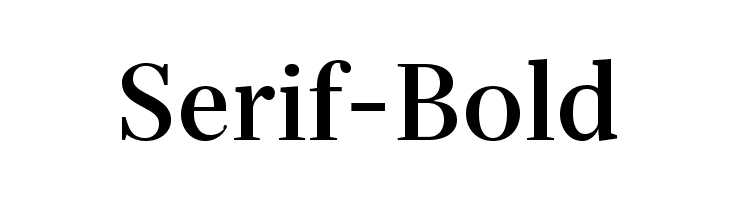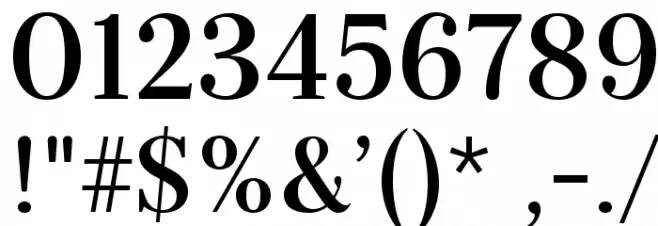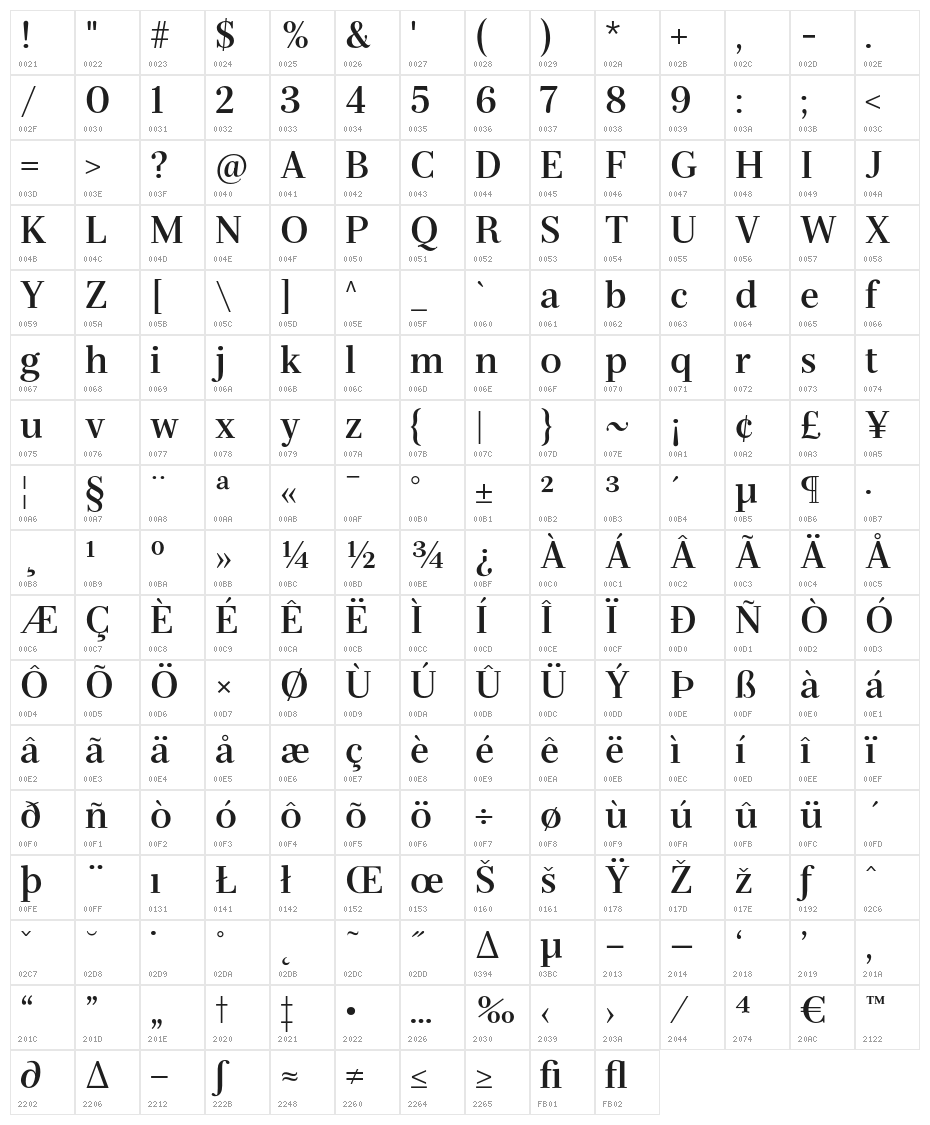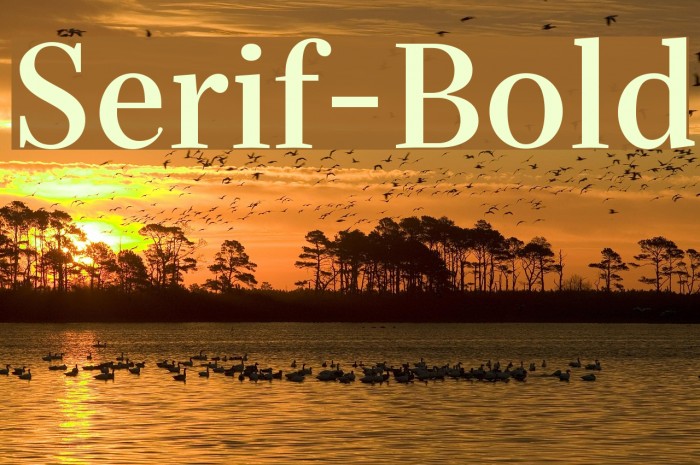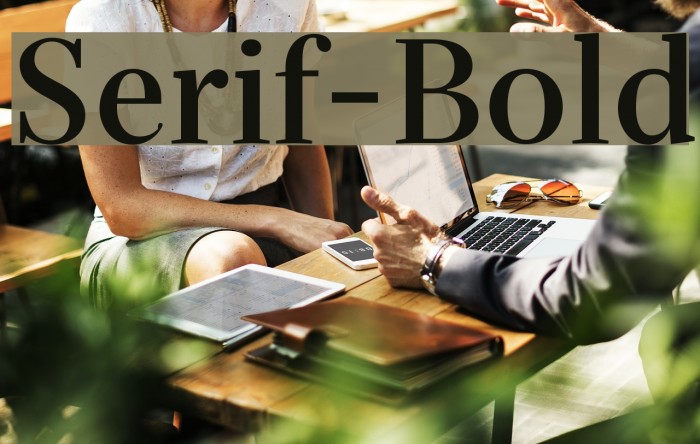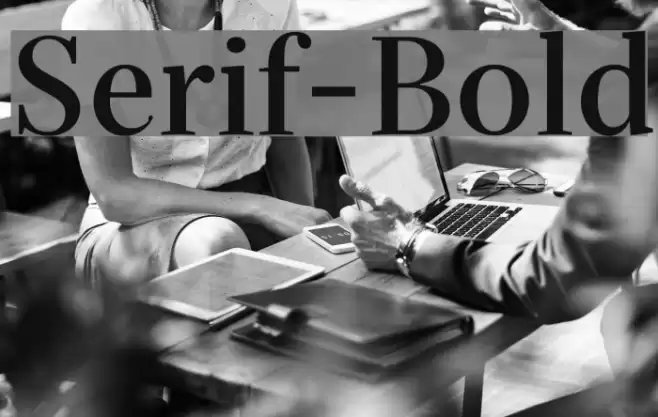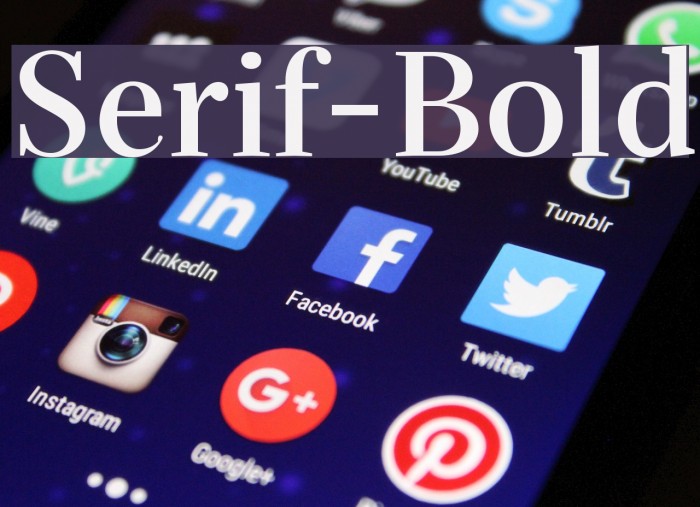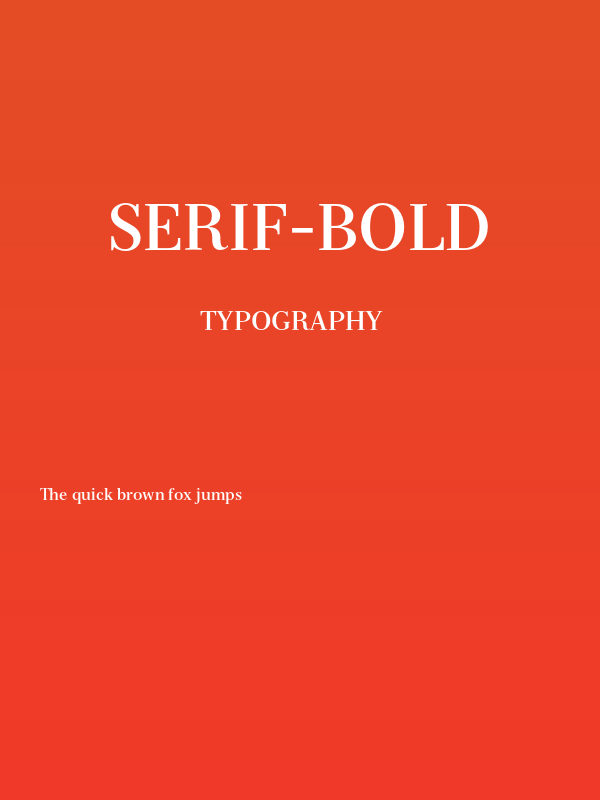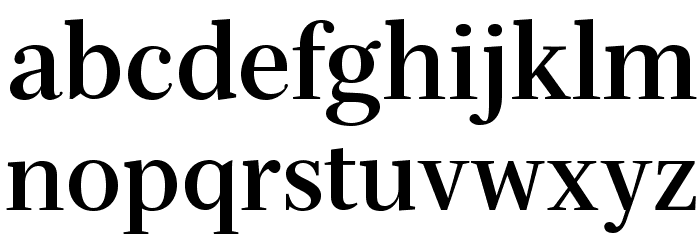
Serif-Bold Font
Serif-Bold Description
This font features a classic serif design with bold, prominent strokes that convey a sense of authority and tradition. The serifs are well-defined, adding a touch of elegance and readability to each character. The uppercase letters are tall and commanding, while the lowercase letters maintain a balanced proportion, ensuring clarity and legibility. The numerals are consistent with the overall bold style, making them stand out effectively. Special characters are distinct and harmonize well with the rest of the typeface, providing versatility for various applications.
| Proposed Projects | Ideal for editorial design, book covers, formal invitations, and branding projects that require a traditional yet impactful look. |